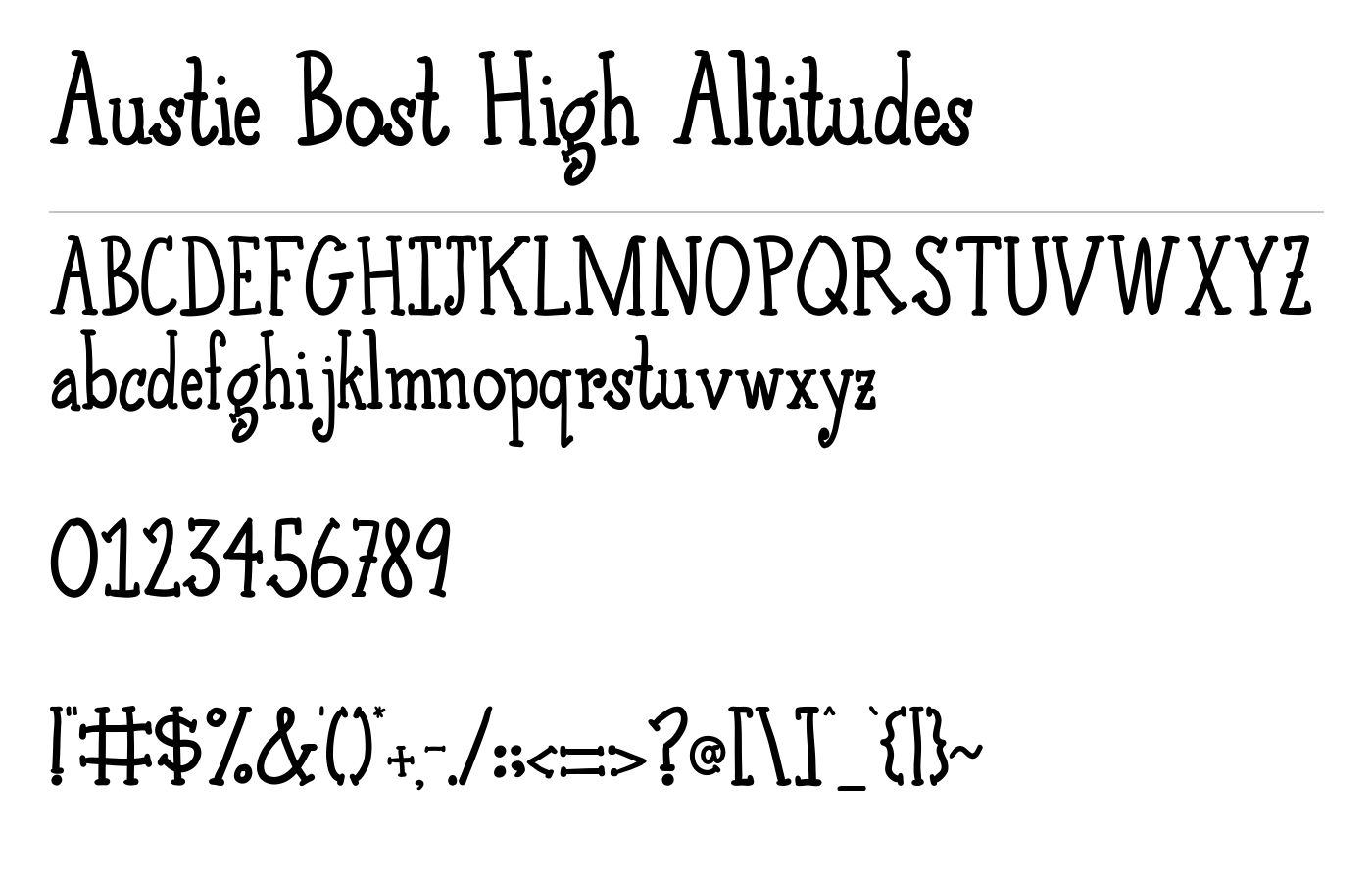
Austie Bost High Altitudes is a whimsical serif font with a hand-drawn, playful feel, featuring tall, narrow letterforms and irregular, quirky details that give it a lively personality. Its light weight and moderate stroke contrast, combined with unique character shapes, make it perfect for creative projects seeking a friendly, informal touch. This font shines in headings, logos, and playful branding where character and charm are key.
Austie Bost High Altitudes Font
About Austie Bost High Altitudes Font
| Font family | Austie Bost High Altitudes Font |
| Designer | Austin Owens |